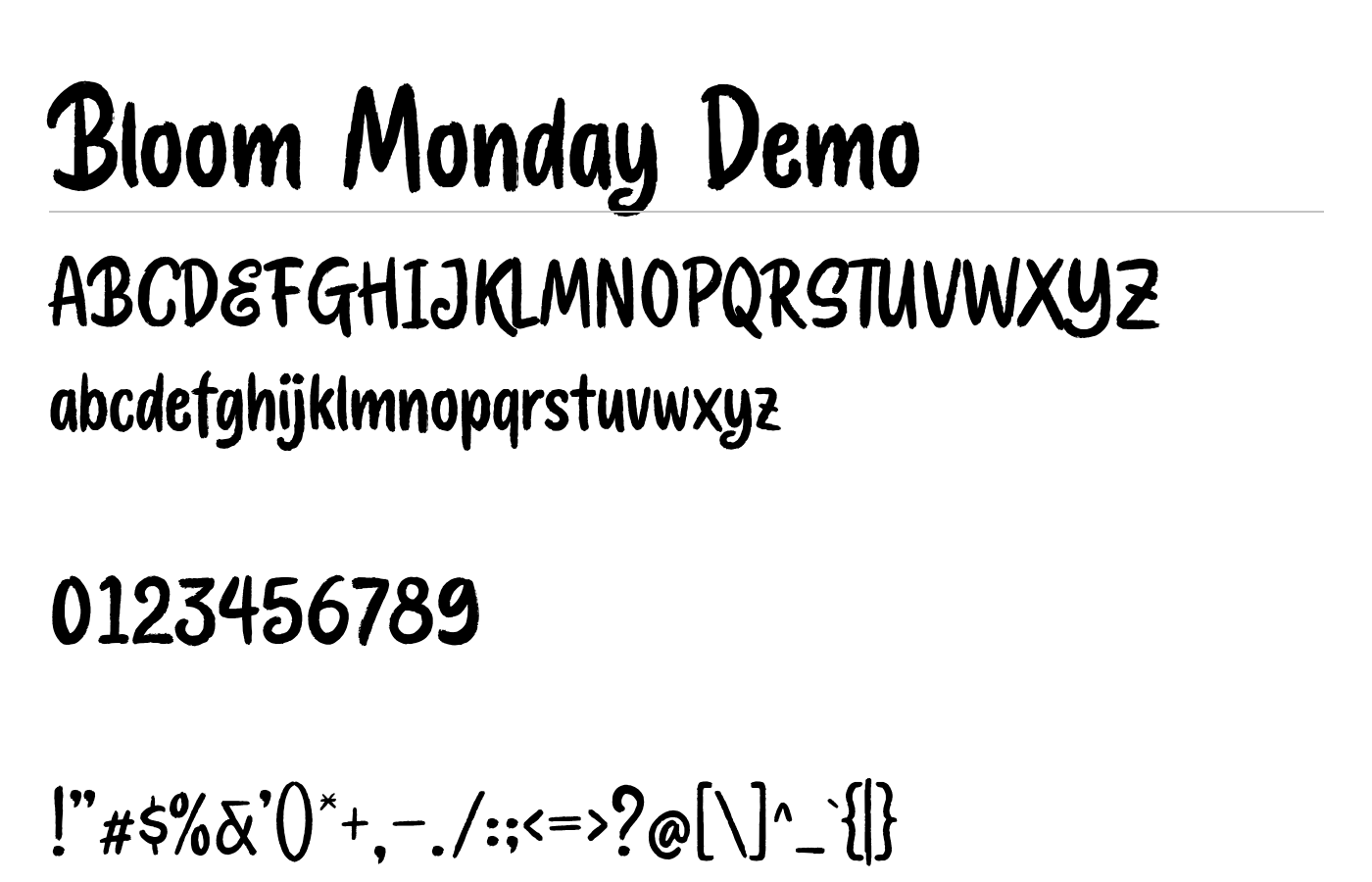
Bloom Monday Demo is a lively and casual handwritten font with a bold, textured stroke that adds a friendly and approachable feel. Its irregular shapes and playful curves give it a personal, artistic character ideal for creative projects, informal branding, and designs seeking a warm, handcrafted touch. Perfect for headlines, logos, and packaging, this font conveys a fun and inviting personality while maintaining clear readability.
Bloom Monday Demo Font
About Bloom Monday Demo Font
| Font family | Bloom Monday Demo Font |